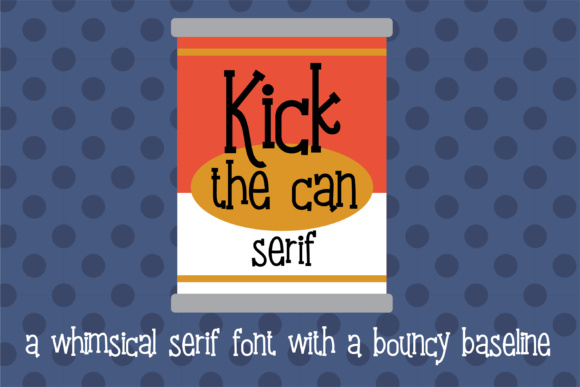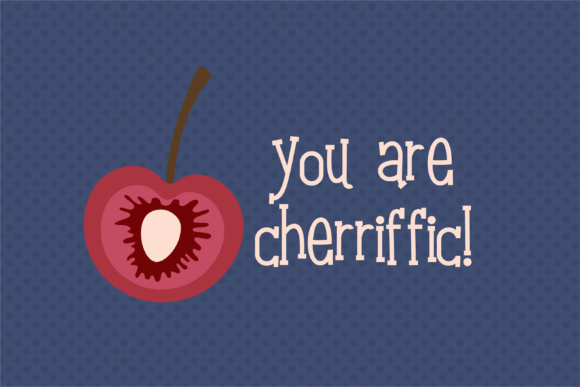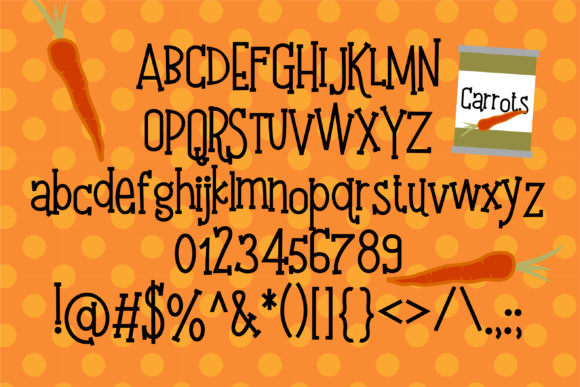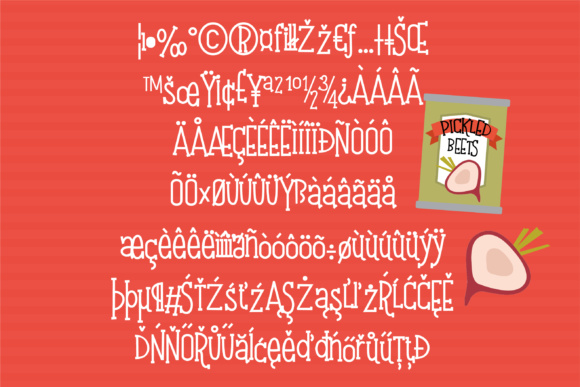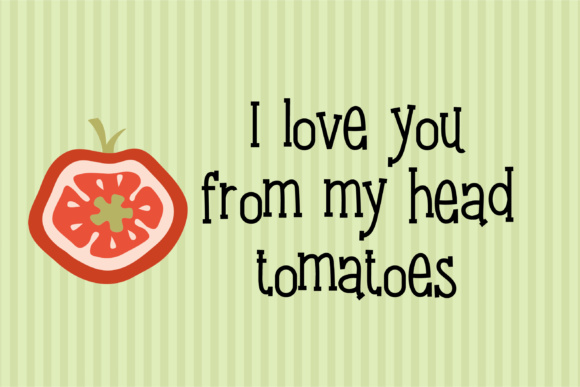
HomeScript FontsKick the Can Serif Font Script Fonts Kick the Can Serif Font FacebookXPinterestWhatsApp Kick the Can Serif Font Poster 2 Kick the Can Serif Font Poster 3 Kick the Can Serif Font Poster 4 Kick the Can Serif Font Poster 5 About Kick the Can Serif Font Kick the Can Serif is a whimsical and fun font which has a slab serif throughout and a bouncy baseline. DOWNLOAD NOW People also explored Ageoline Font Autumn Fall Minimal Coffee Mug Mockup Underline Font Mercano Empire Kafflass Font Yuliyana Script Font Barbie Font Julietta Signature Font Nature Font 298 0 TagsKick the Can Serif Font Previous articleSaturday Duo FontNext articleBigshot Jitter Font LEAVE A REPLY Cancel reply Comment: Please enter your comment! Name:* Please enter your name here Email:* You have entered an incorrect email address! Please enter your email address here Website: Save my name, email, and website in this browser for the next time I comment. Personal Use Free Angola Beach Personal Use Free Read more about this font Bashira Personal Use Free Read more about this font GoodFay Personal Use Free Read more about this font Free Personal Use Free Read more about this font BLOG Top 7 Google Fonts Alternatives for Faster and Privacy-Friendly Web Design (2025) Top 7 Google Fonts Alternatives for Faster and Privacy-Friendly Web Design (2025) When it comes to web typography, Google Fonts has long been the go-to... How to Cut Any Font on Cricut: Convert a Font to SVG (Free) Top 10 Handwritten Fonts That Elevate Your Designs Modern Sans-Serif Fonts That Brands Love in 2025